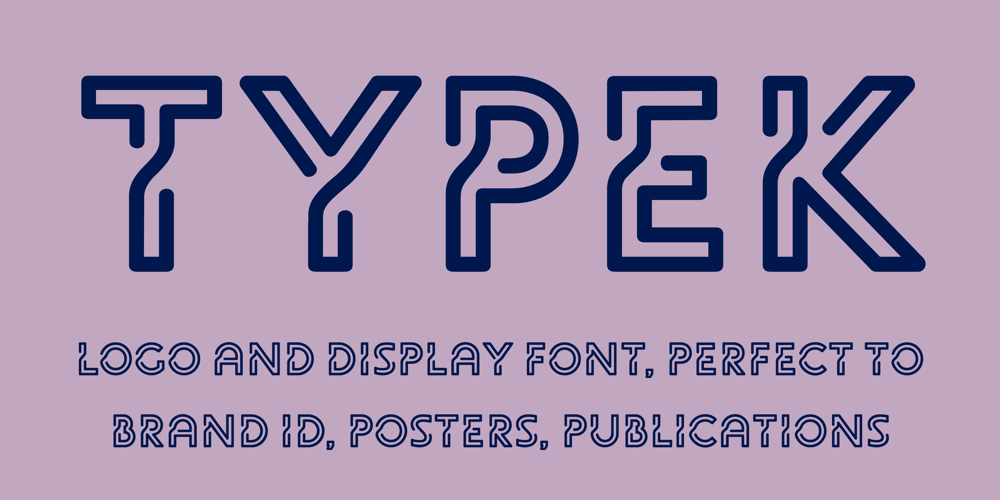
Typek
Typek font
Typek Font Family was designed by Agnieszka Olszewska and published by Agnieszka Ewa Olszewska. Typek contains 2 styles and family package options. Typek is a sans serif typeface for the lovers of minimal design and great curves. Typek outlines’ professional shapes are perfect for large display usage.. Perfect for branding, posters, web and publications. The idea is to treat the letters’ stroke create absorbing and interlaced shape. The design of small interfering in letters’ construction makes Typek unique. Typek contains uppercase, diacritics and digits. The Typek Family is in two versions: Regular and Outline. Outline version can be an interesting addition and decoration for the Regular version.